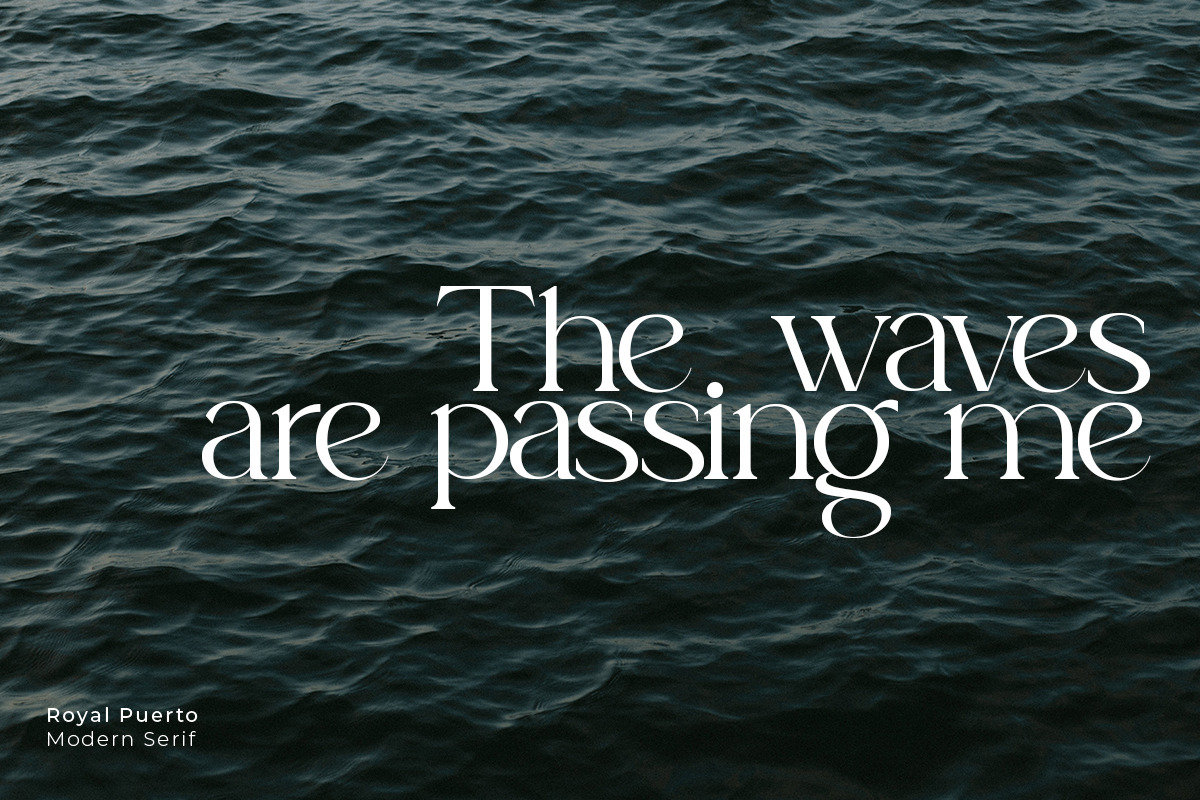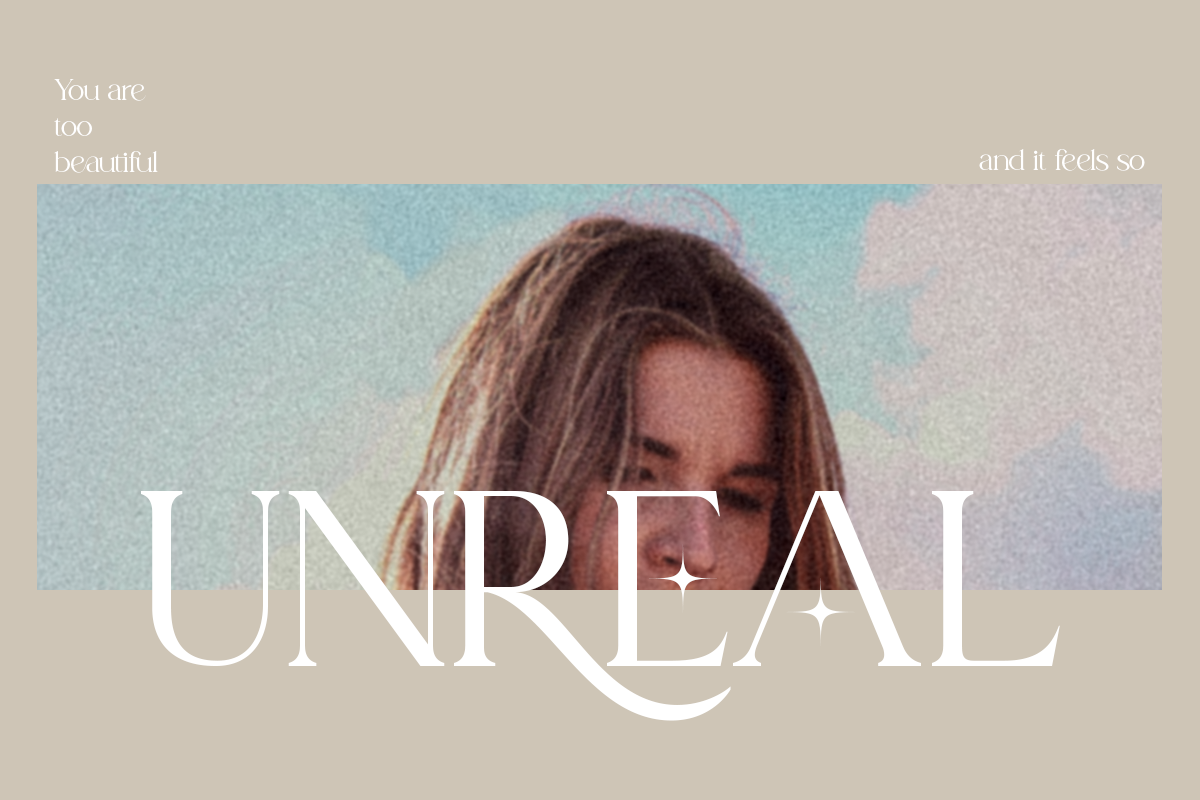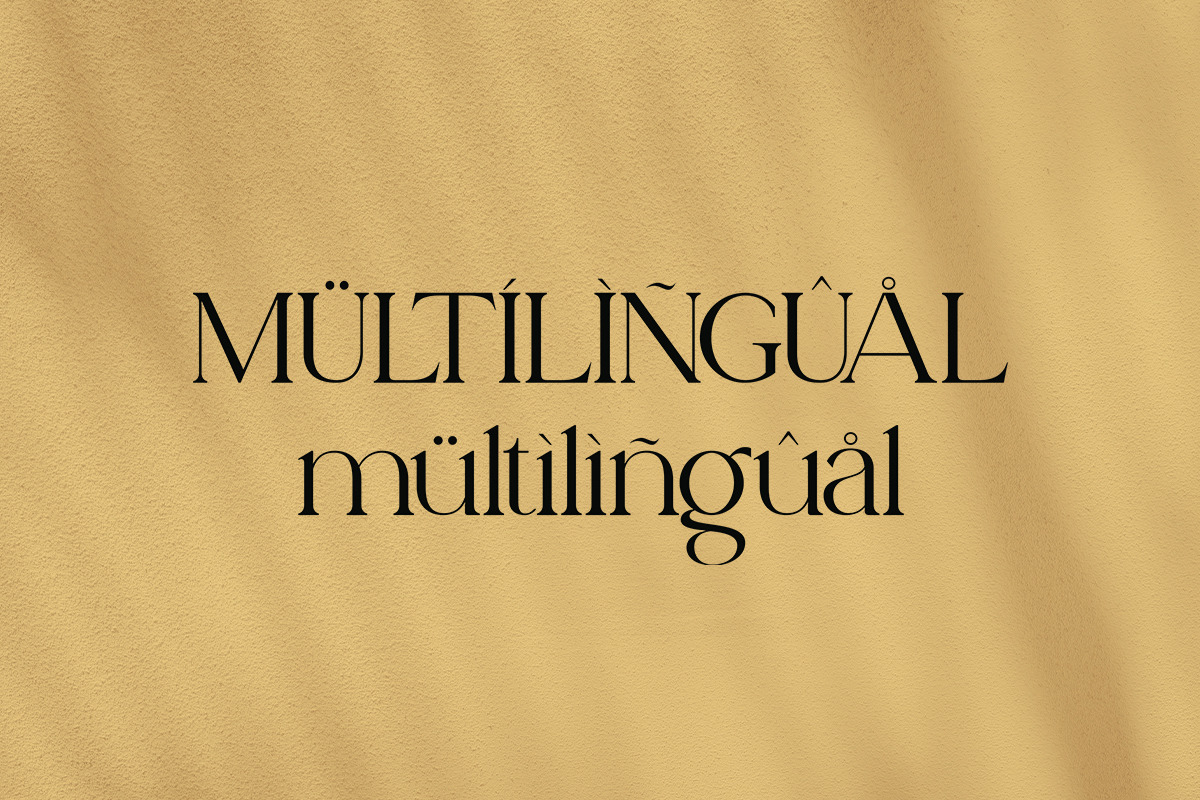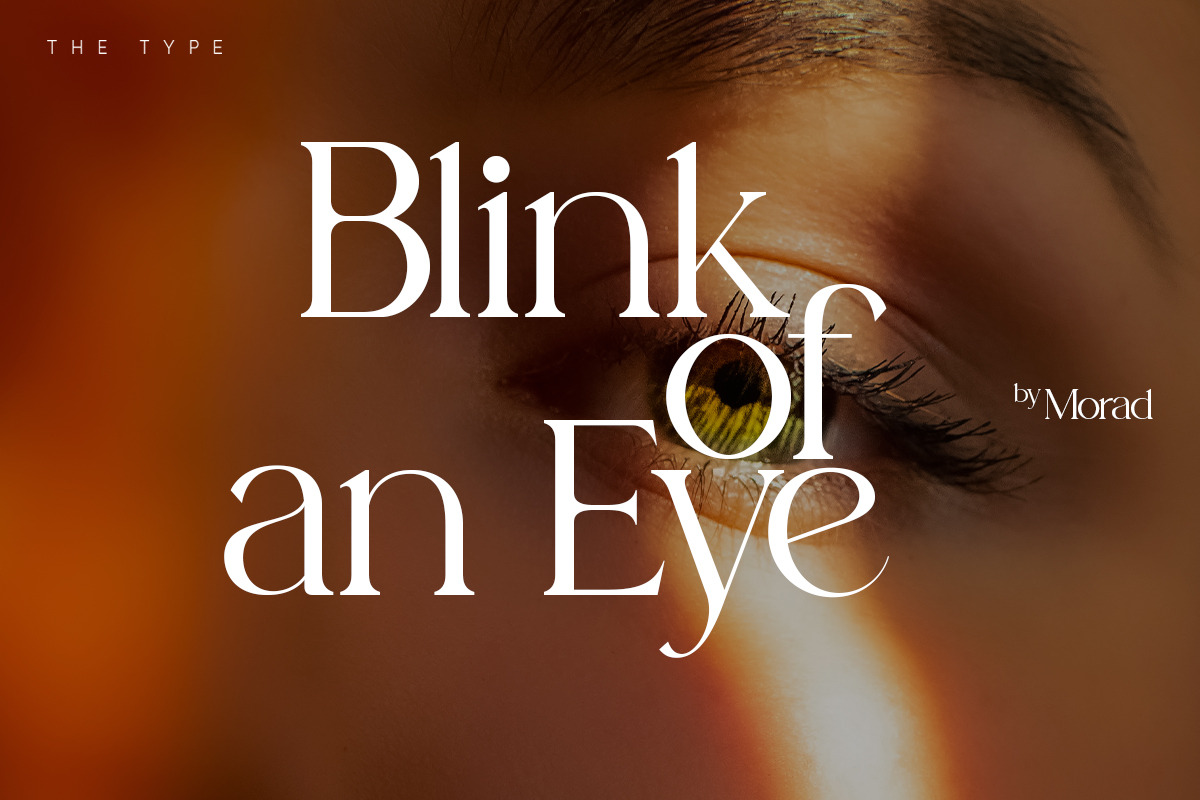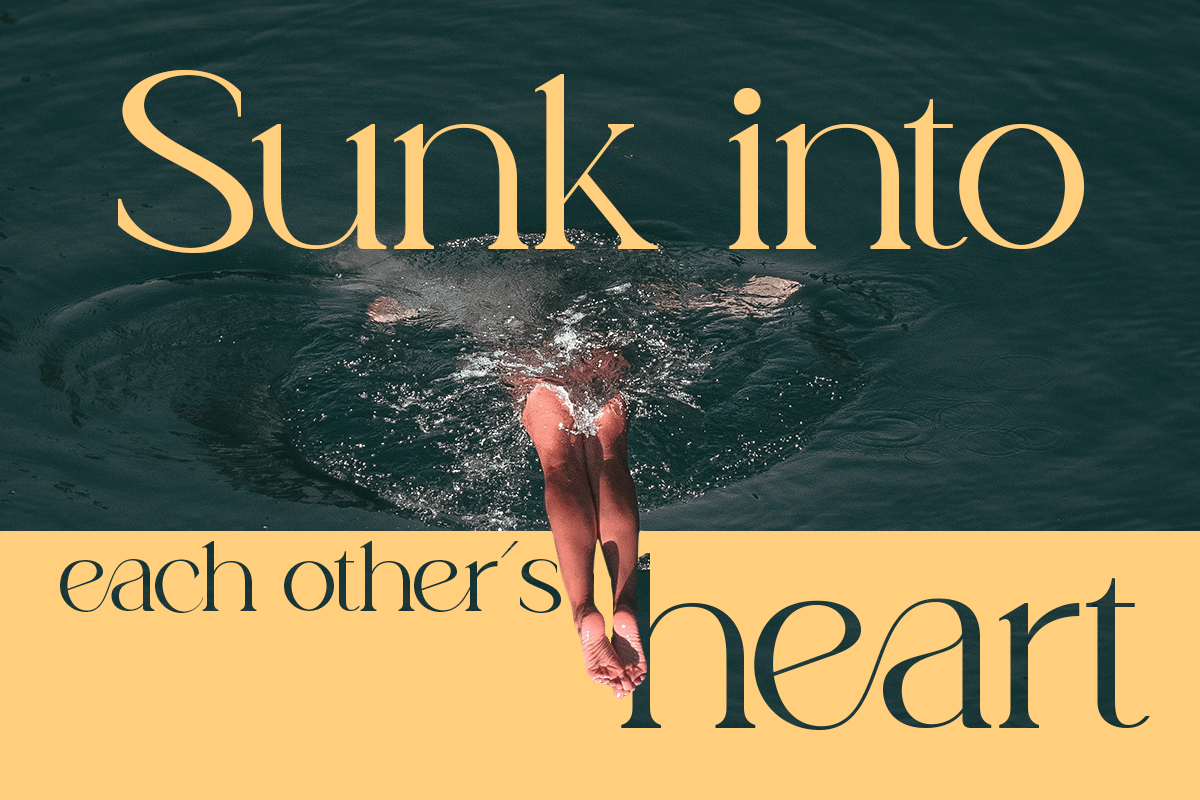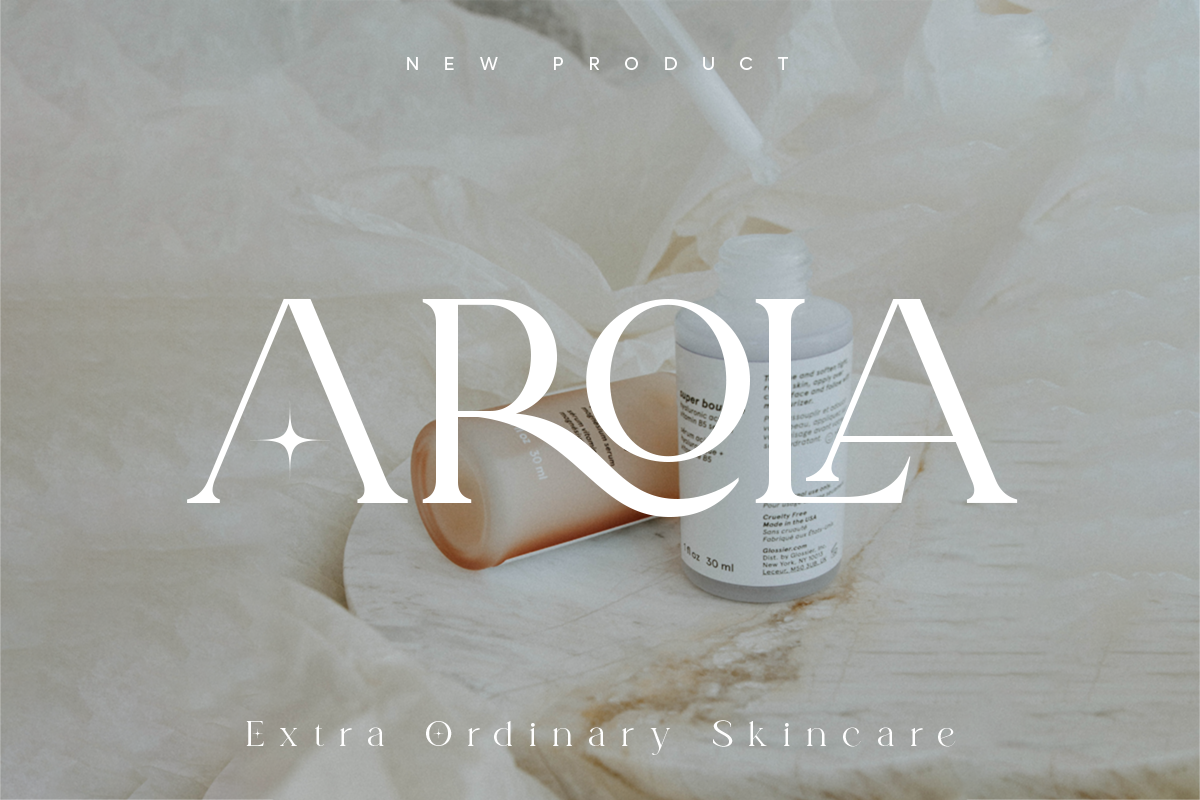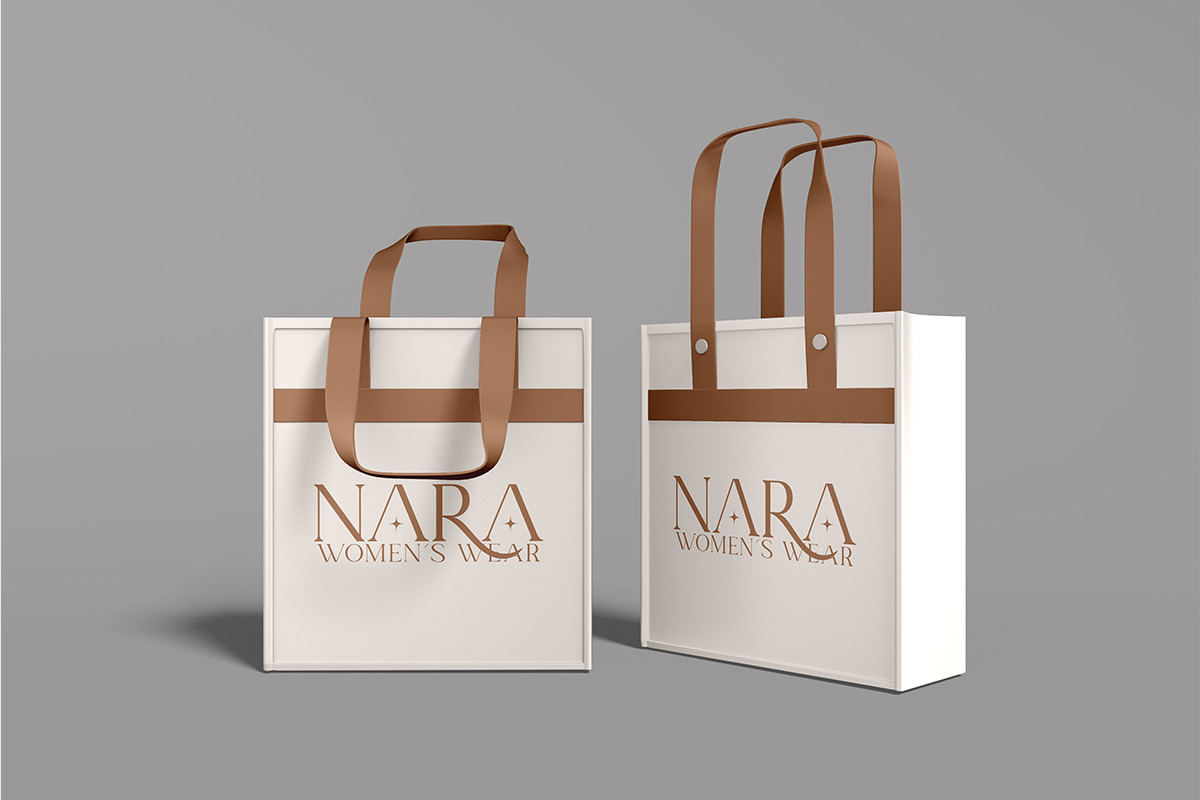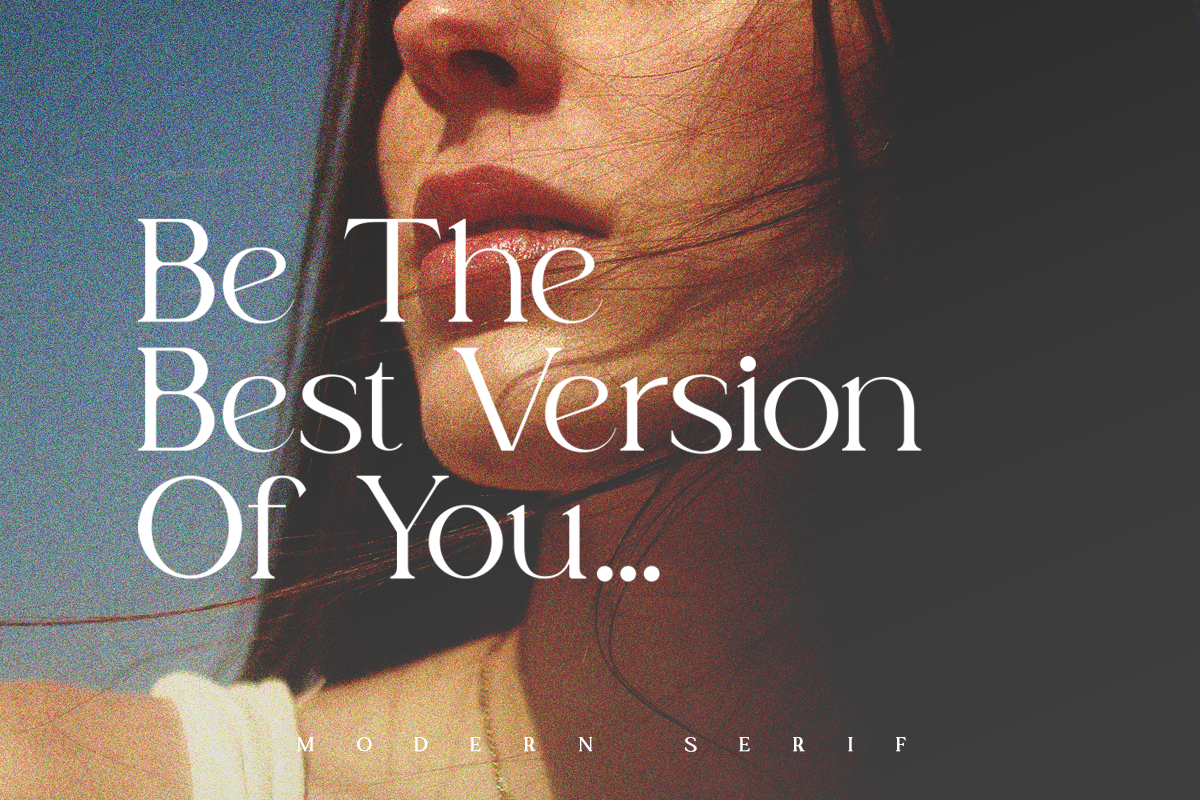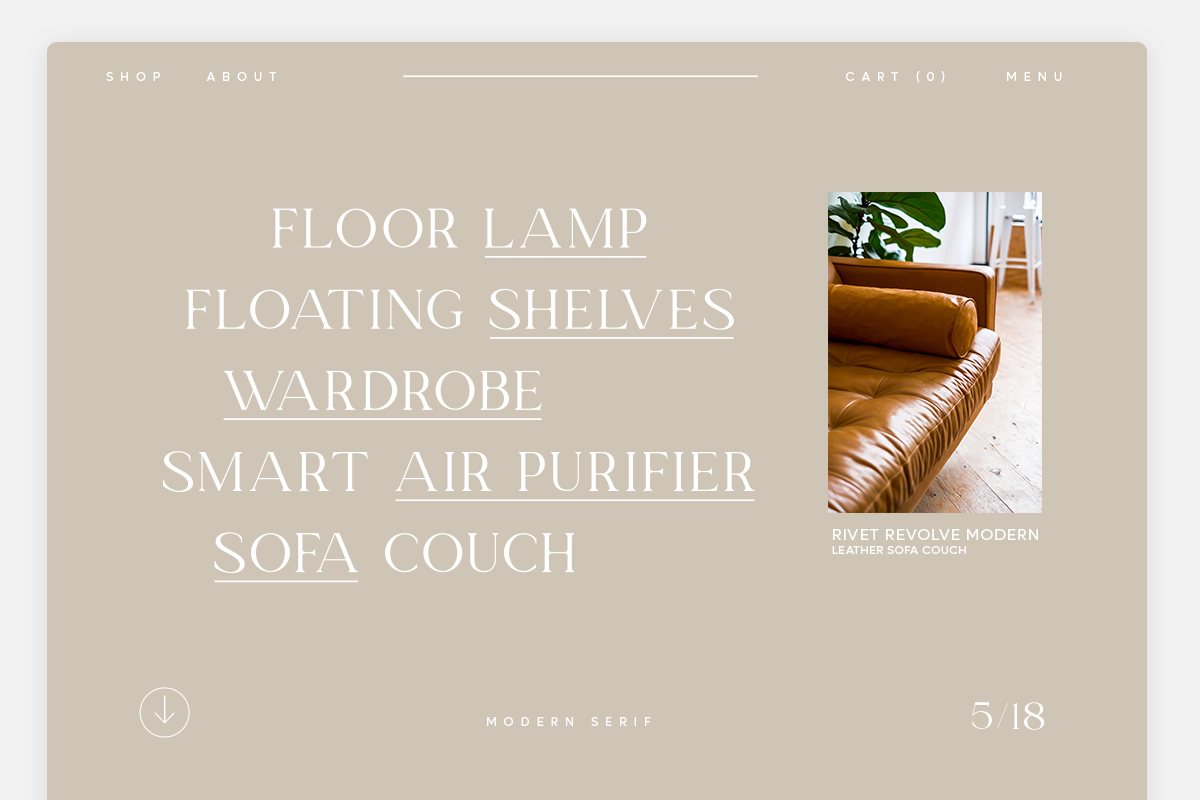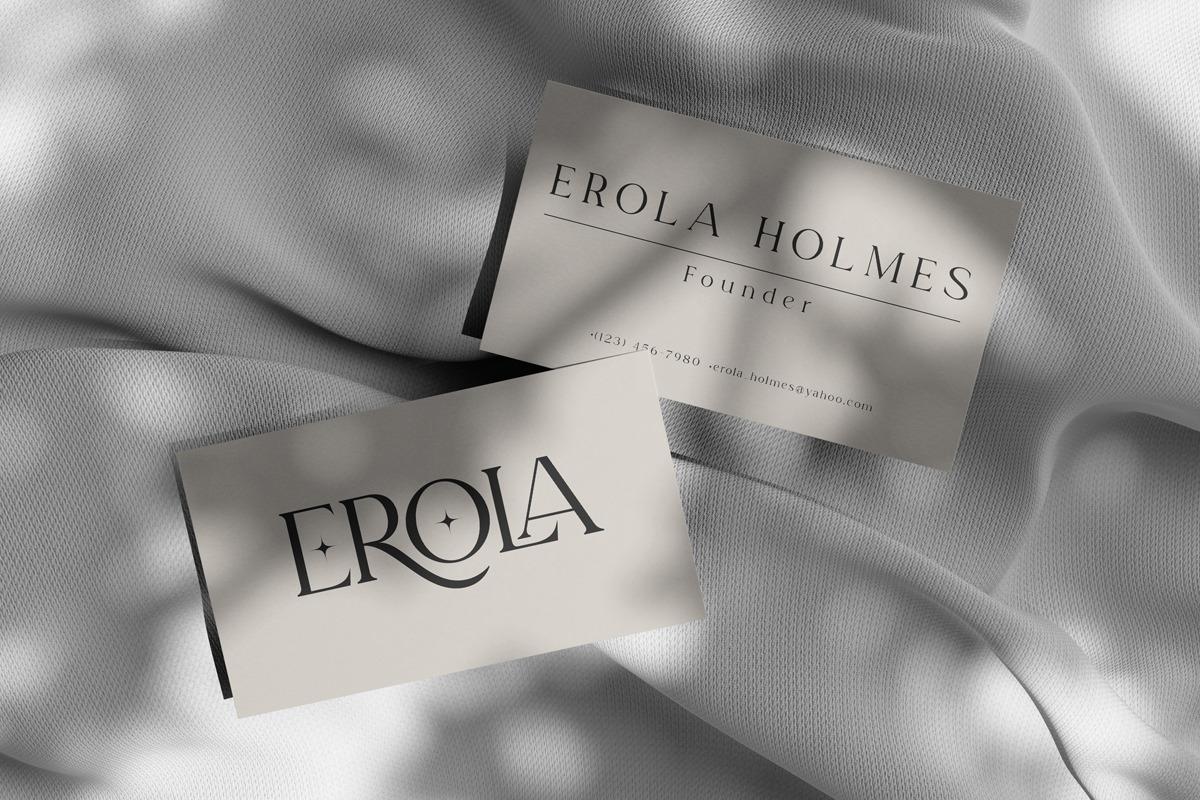
ROYAL PUERTO MODERN SERIF
Royal Puerto is a modern and romantic serif font. Whatever the design idea, this font will be an excellent asset to your font library, as it has the potential to improve any creation. Rolay Puerto is PUA encoded which means you can access all of the fascinating glyphs and swashes effortlessly!